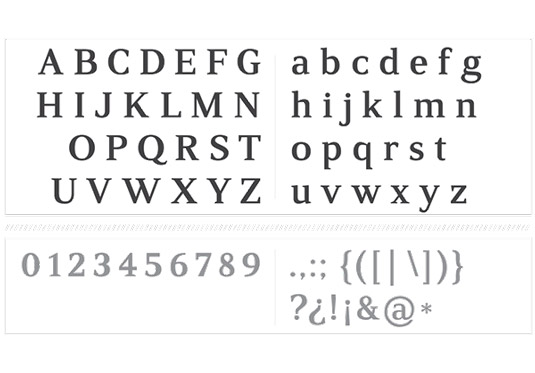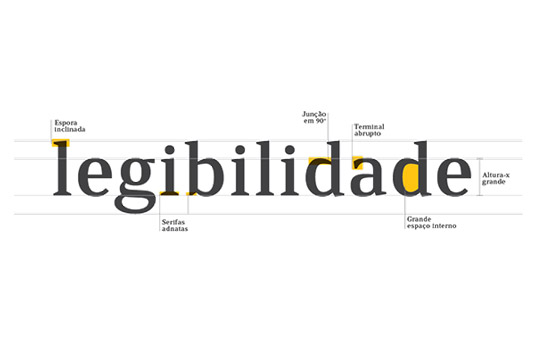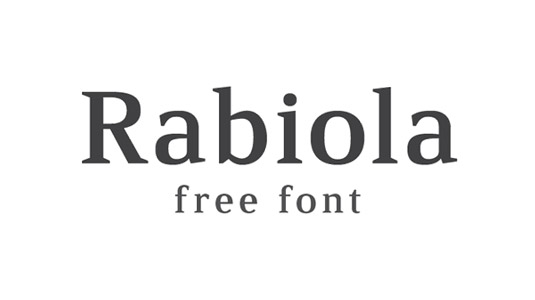
Rabiola by Raphael Sathler
Raphael Sathler (opens in new tab) is the design student behind this free serif font Rabiola. Created during a typographic design class, Sathler generously offers his design as a free download (opens in new tab) in exchange for a tweet.